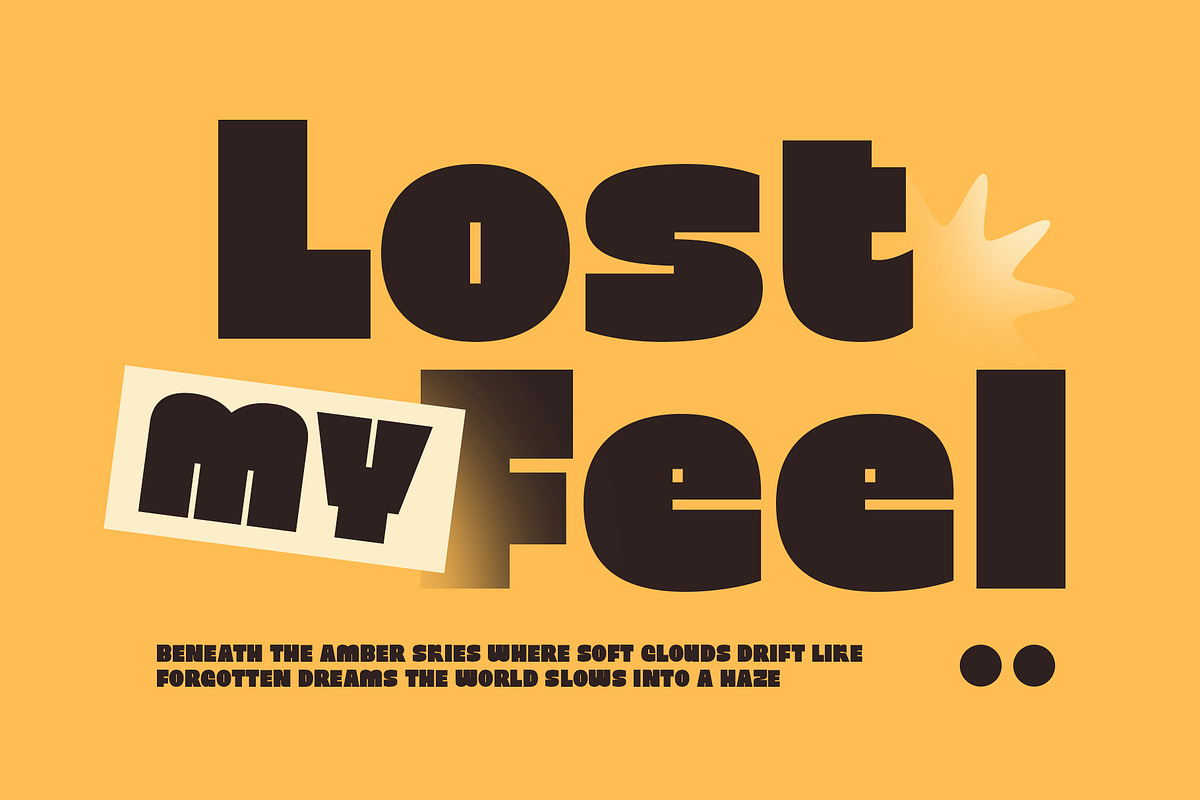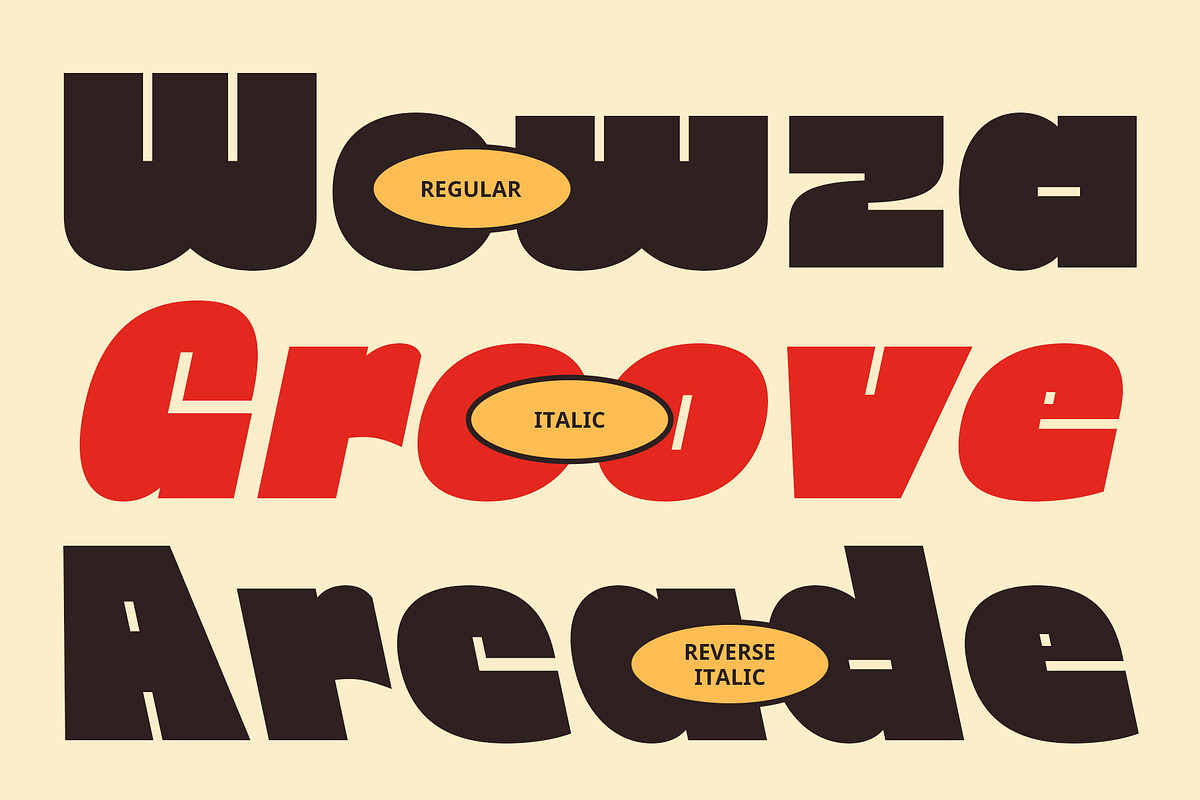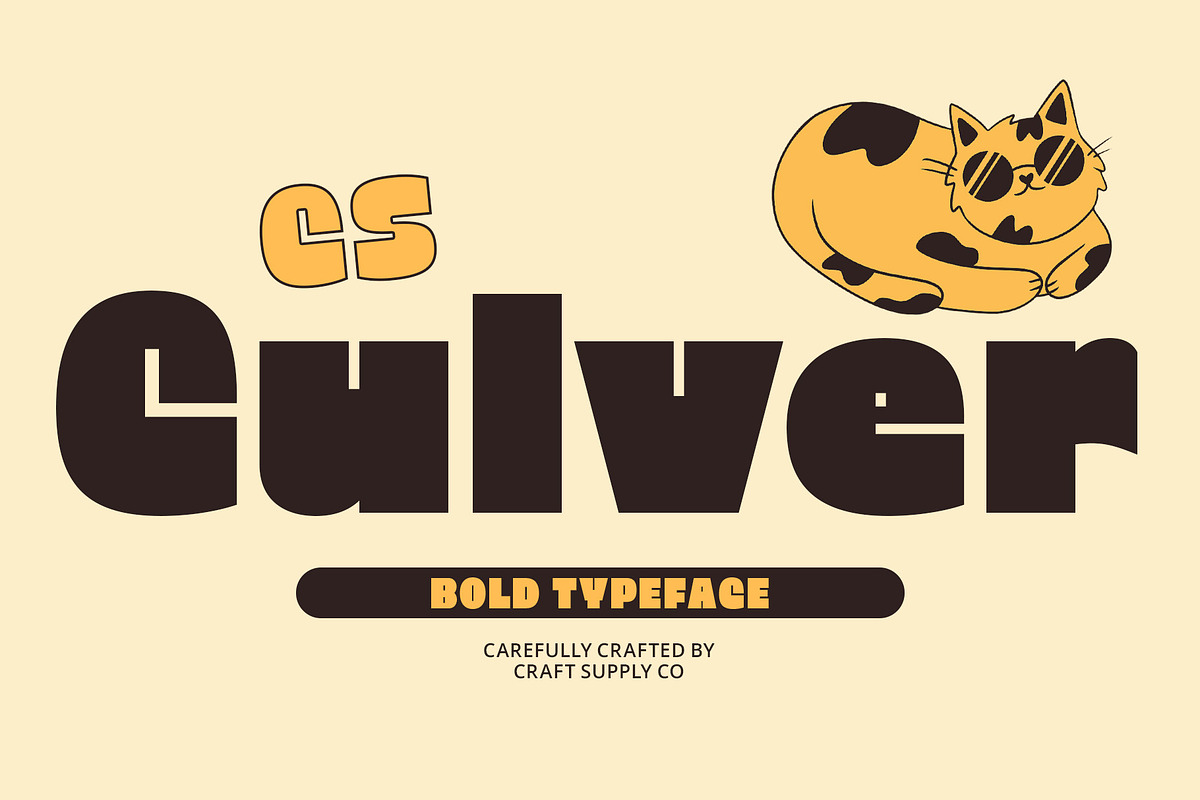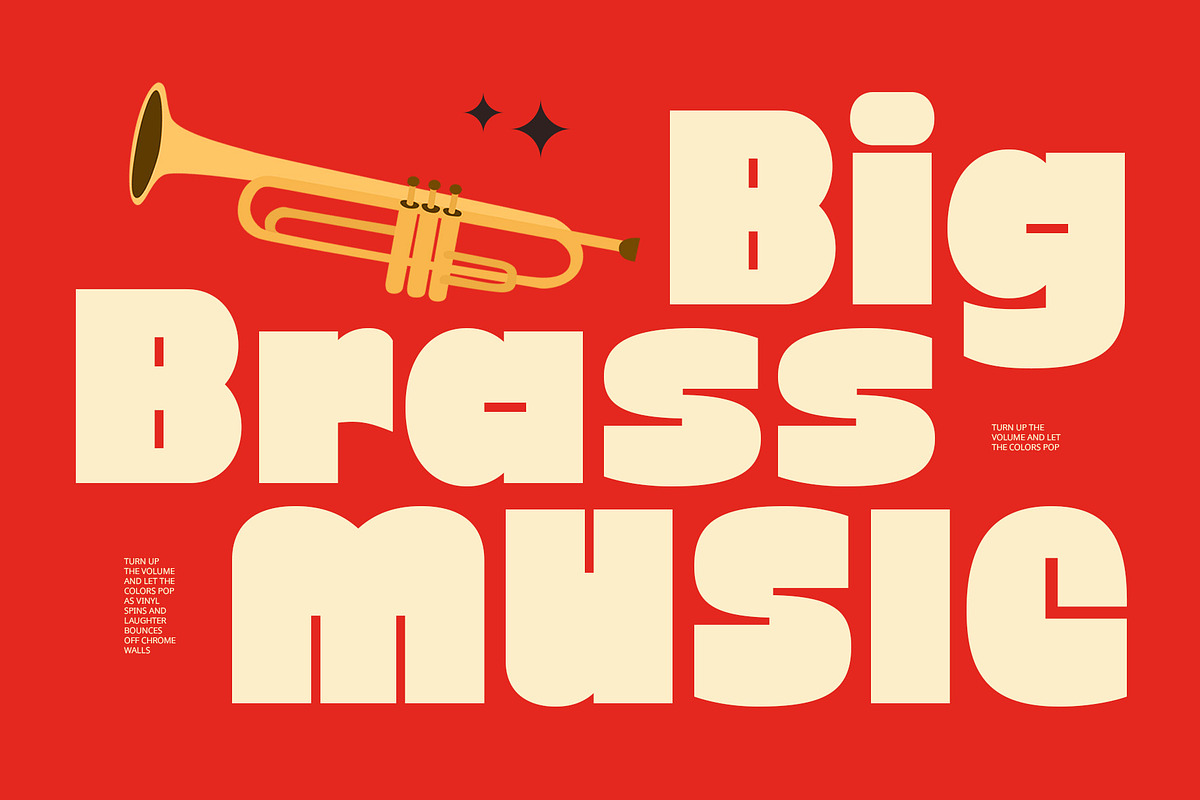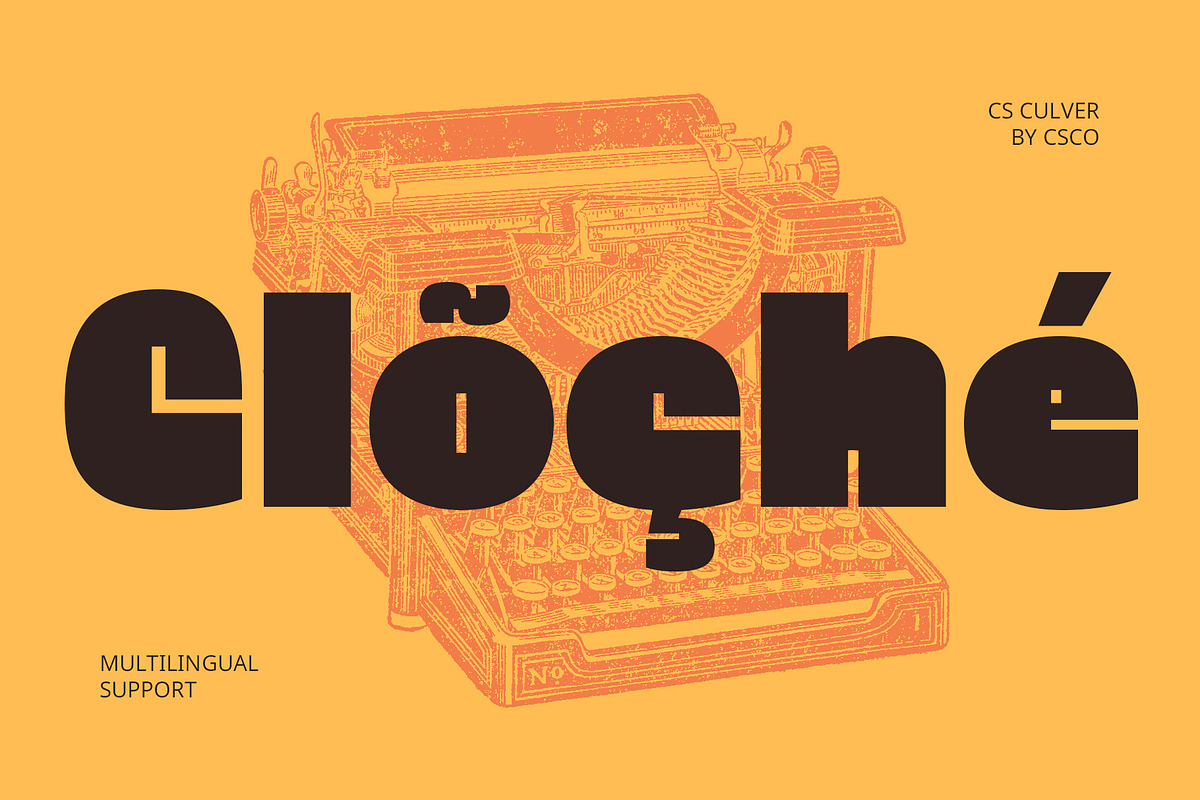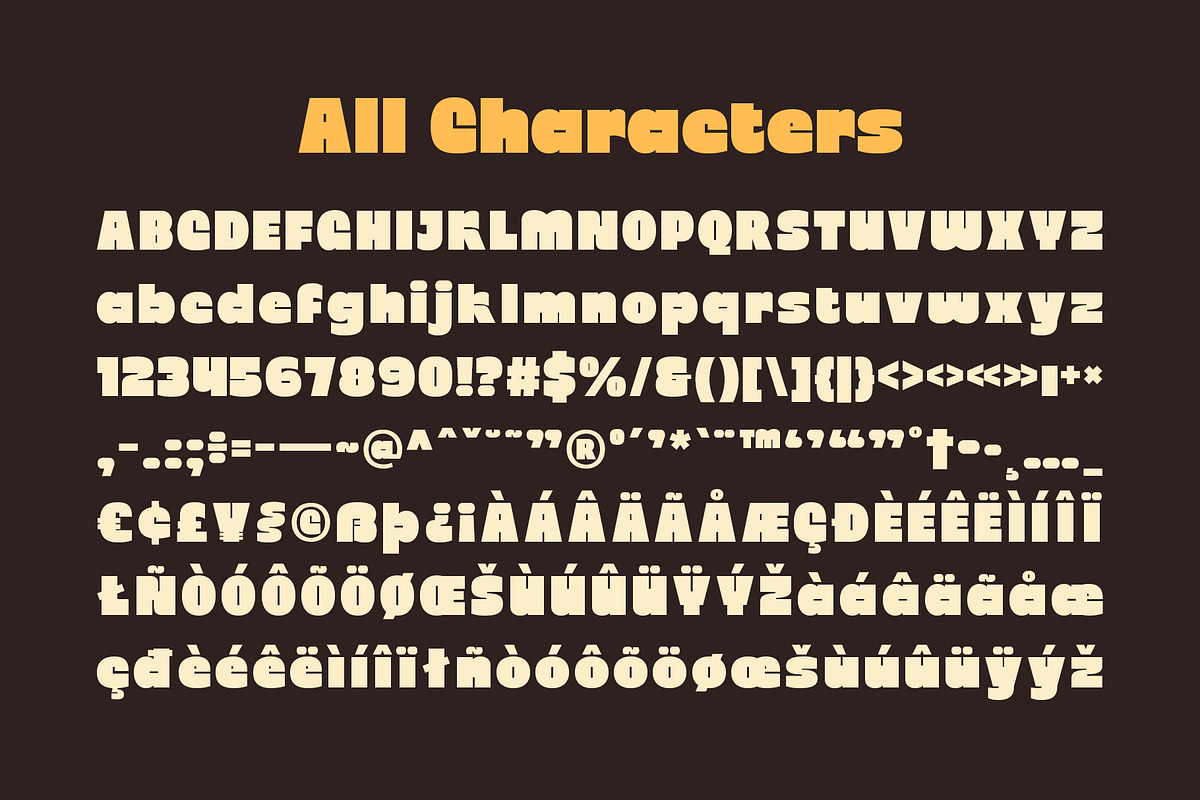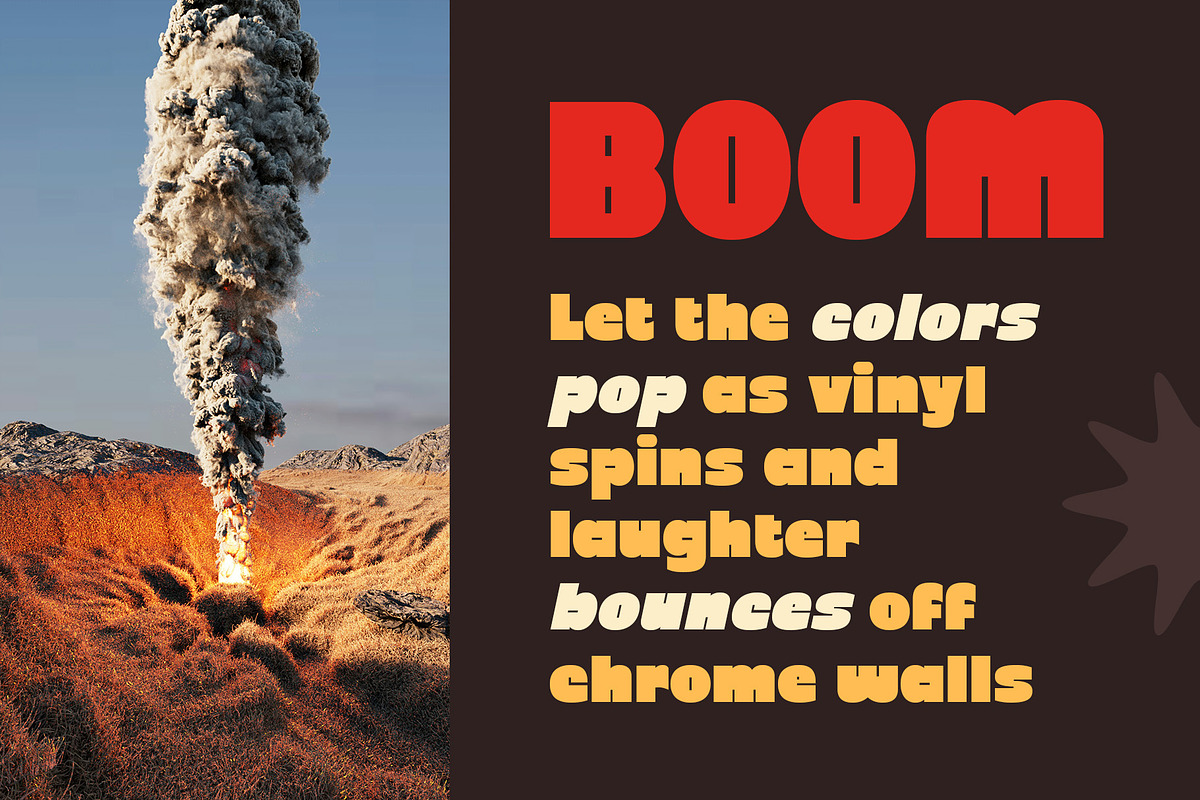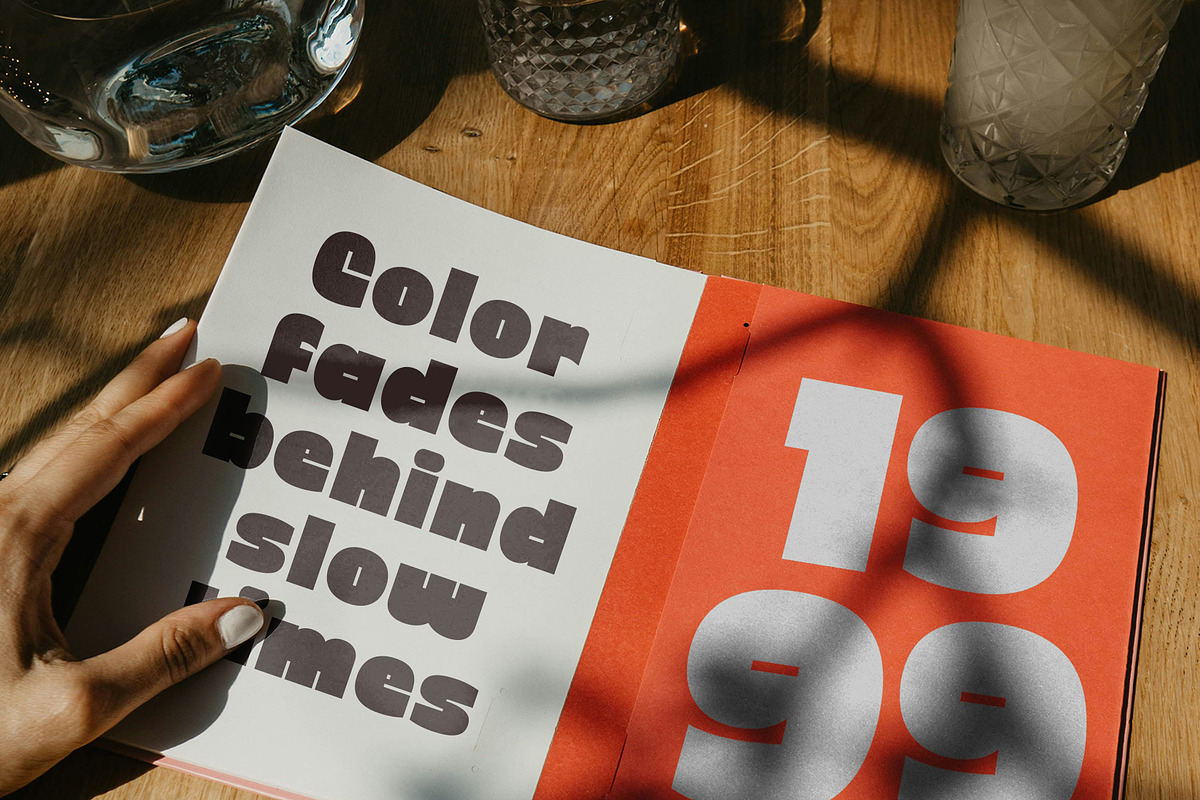
CS Culver – Bold Font
CS Culver Font – A Bold Sans Serif with Retro Funky Style
Bold, Playful, and Full of Character CS Culver is a bold sans serif font that combines a clean and confident structure with a retro funky twist, resulting in a truly standout display typeface. Its letterforms are crafted to evoke a sense of energy, playfulness, and style, blending vintage aesthetics with a fresh, modern sensibility.
Funky Vibes Meet Contemporary Design The font’s design recalls classic retro influences—think 70s funk and nostalgic pop culture—while remaining grounded in clean, geometric forms. This creates a delightful contrast between the old-school charm and the modern clarity, making CS Culver a versatile font for bold, expressive designs.
Perfect for Loud, Lively Visuals CS Culver is ideal for music posters, event promotions, product packaging, and creative branding that needs to make an eye-catching, fun, and vibrant statement. Whether you’re aiming for a funky throwback or a fresh pop-art look, this font delivers personality and visual impact.
Stylish and Memorable With its bold weight and stylish presence, CS Culver ensures your typography leaves a lasting impression. It brings a joyful yet professional feel to any layout, making it an excellent choice for designers looking to add a spark of fun and nostalgia to their projects.
- CS Culver Regular
- CS Culver Italic
- CS Culver Reverse Italic